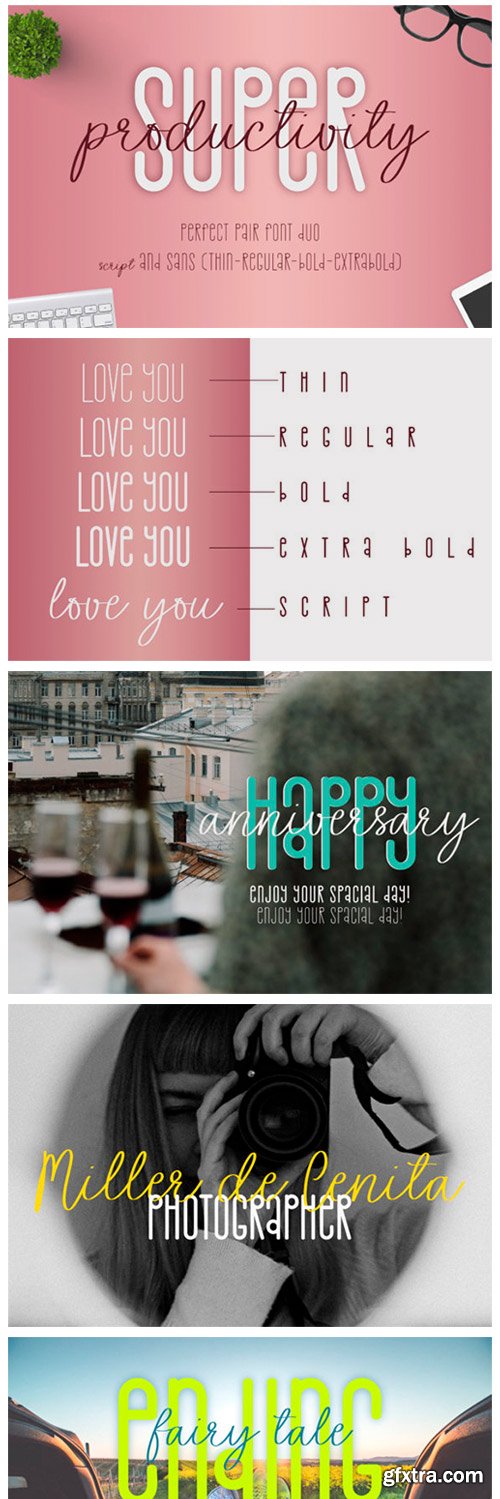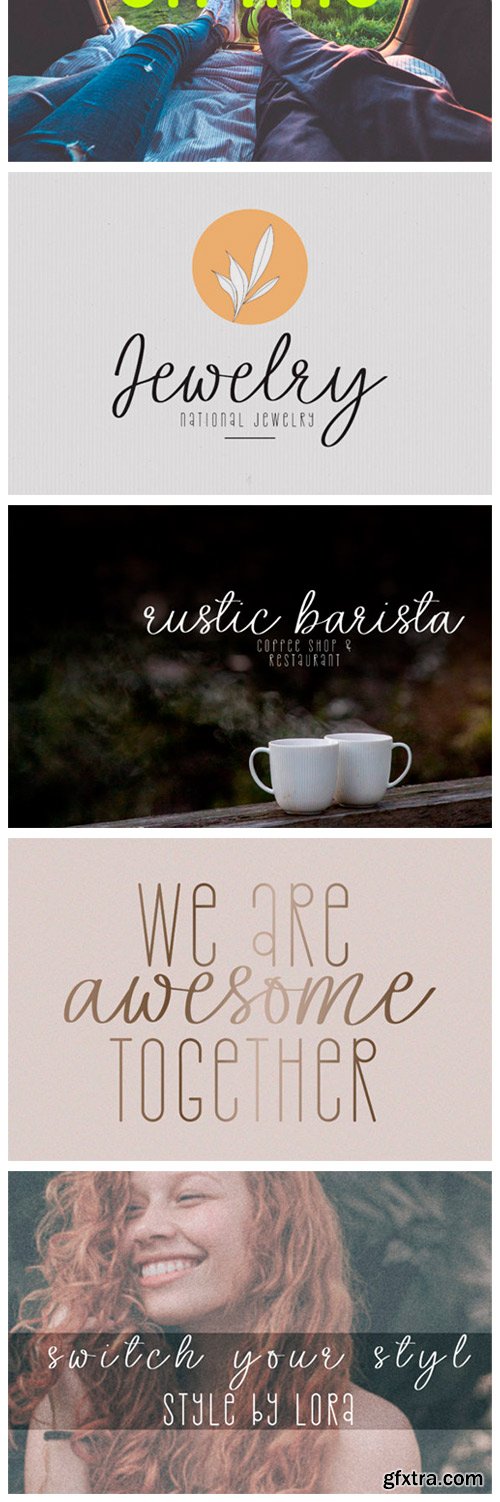
Super Productivity Font
Super Productivity is a duo-styled (handwritten and sans serif) font. Not too thin and not too thick, balanced and varied, this font was designed to enhance the beauty of your projects.